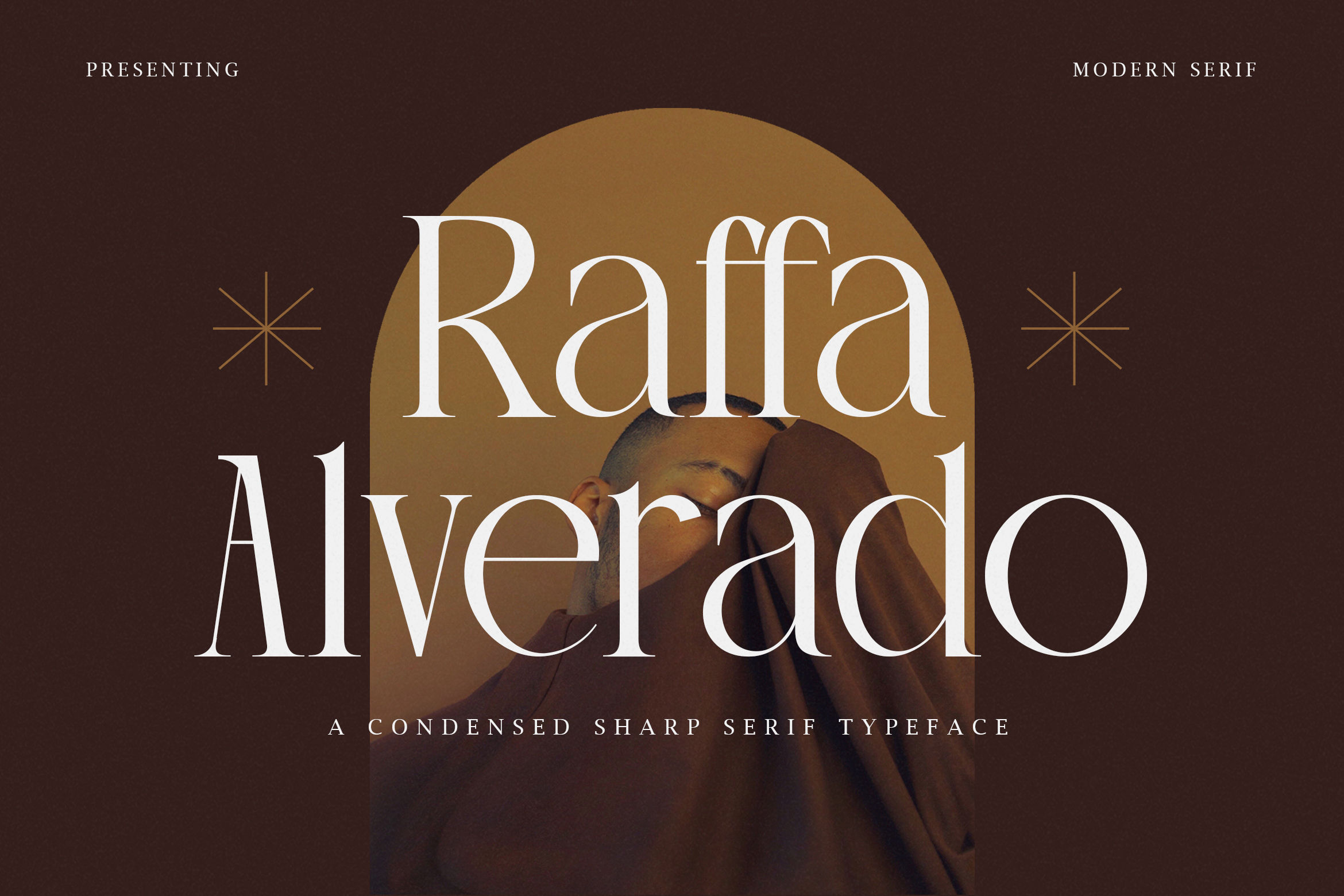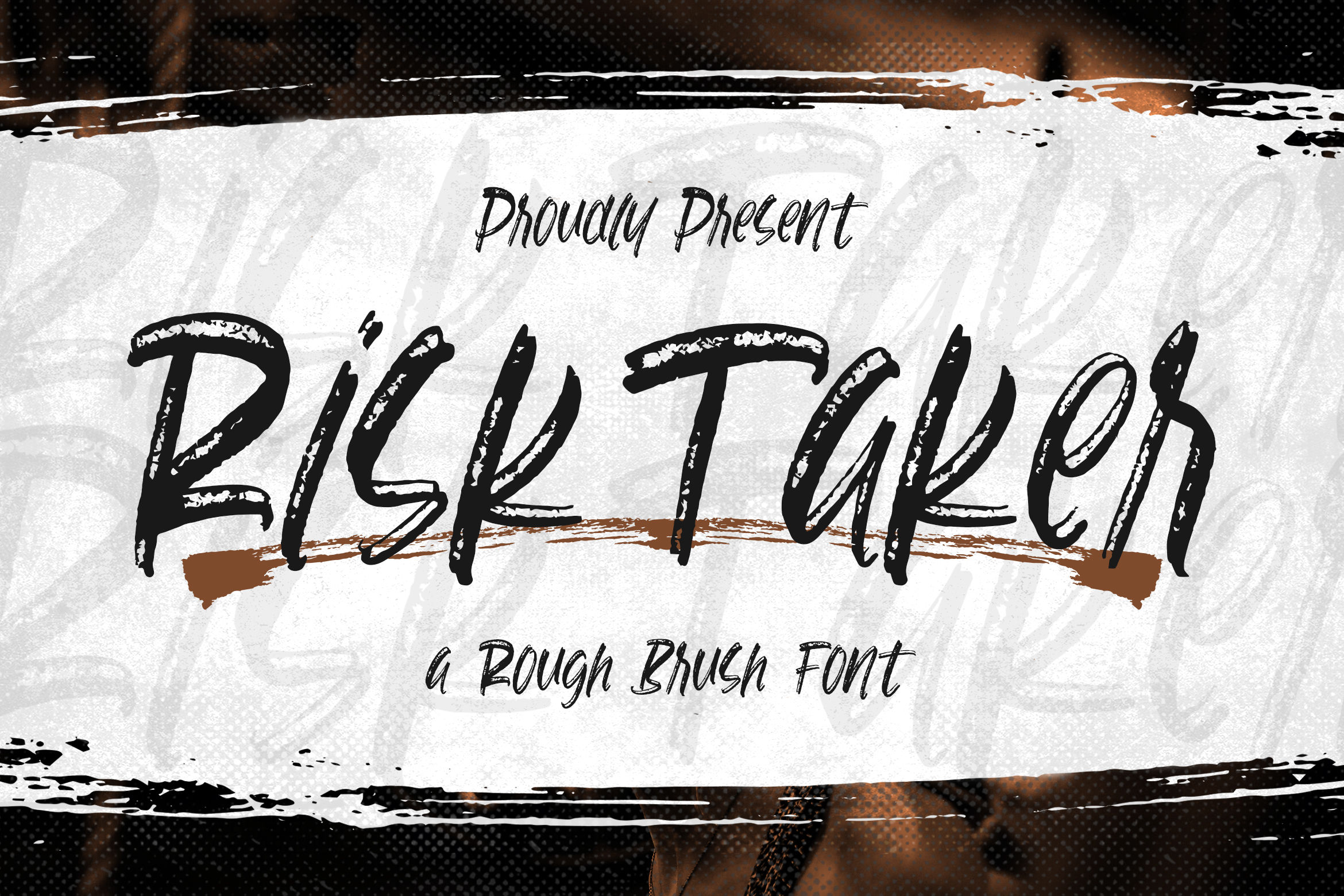
The Top 7 Best Fonts for Designers in 2024
Typography plays a significant role in everything, especially in the design world. From print to web design, typography holds a central position. In 2024, typography trends expanded to include organic shapes, abstract designs, mix-and-match compositions, and with the emergence of the Artificial Intelligence trend, we have developed several fonts to meet your design requirements.
Our fonts are designed to fit seamlessly into the ever-changing design landscape, adapting to new trends and technological advancements. Whether you’re crafting a brand identity or conveying a message, our diverse range of fonts ensures that designers have the tools they need to create compelling content. By embracing the power of AI, we’re shaping the future of design and empowering designers to unleash their creativity with confidence.
And here’s our favourite collection of fonts that we’ve designed for you:
1. Raffa Alverado
Artboard 1 Raffa Alverado
Raffa Alverado is a condensed sharp serif display typeface that has a broad range of alternatives. To make your design look authentic and more personalized, we have added small details that will make your brand stand out from the competition. Get our Raffa Alverado Font below:
2. Aleiakids
Artboard 1 Aleiakids
Aleiakids is an unique font with interesting ligatures and shapes. Every alphabets have its unique details and also the ligature create another uniqueness in this font. When you use this font for your logo or brands, it will make your brand be remembered with unique style that’s very 2020s. Get our Aleiakids Font below:
3. Gumithir
Artboard 1 Gumithir
“Blackletter is a culture” that’s what we said. It is not just a font that every alphabets are beauty enough to make your brands very personal, but Gumithir will change the way people look at the design with blackletter typeface in it. Comes with ligatures and alternates will make you have a lot of choice to play with your custom design. Get our Gumithir Font below:
4. Meriah Display
Artboard 1 Meriah
Meriah display is a liquid inspired typefaces that we bring in 2023. Following the trends of organic shapes in 2023 that will continue to 2024, we create stunning typefaces that will match your design needs. Featured with ligatures and alternative glyps will give you more option for presenting your designs with this font. Get our Meriah display font below:
5. Loophole
Artboard 1 Loophole
And don’t forget to our another script stylized design that’s Loophole typefaces. With monolined script style Loophole Font will give your brand fancy and playful looks. Just don’t forget to explore the alternates style and ligatures as well. Get our Loophole font below:
6. Kingslay
Artboard 1 Kingslay 1
Kingslay our typefaces released in 2023. Represented the evolution in design society where Artificial Intelligence taking over many roles to make works become efficient as possible. Kingslay was inspired by combination of cyberpunk + tech startup that makes this typeface are more legible to use for your brand than abstract style. Get our Kingslay font below:
7. Risk Taker
Artboard 1 Risk Taker 1
For everyone who like the rough texture, don’t forget out Risk Taker typefaces. Combined with script style that makes it versatile enough to be displayed in your design. Available with alternative style and ligatures that’ll give you more option to use. Get our Risk Taker font below: